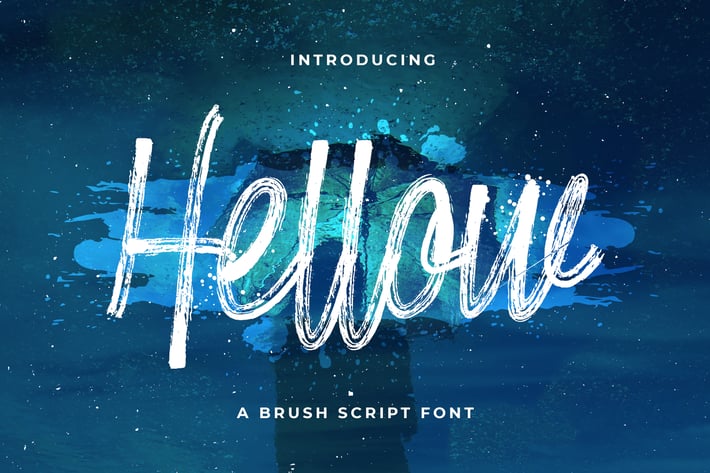
Hellow – Brush Script Typeface
Hellow is a brush script typeface. Perfectly suitable for creating Brands, Art, lifestyle designs such as logos, title, and magazines and more.
– Lowercase
– Ligature
– Alternate
– Multilingual Support